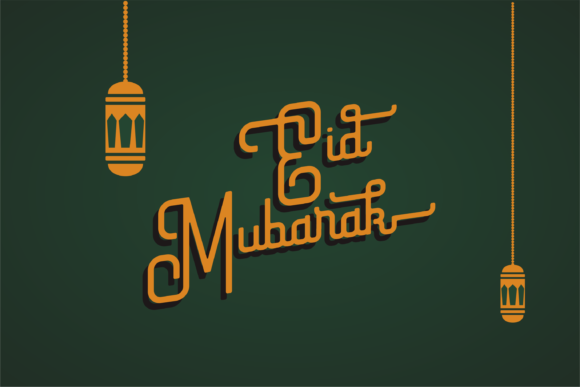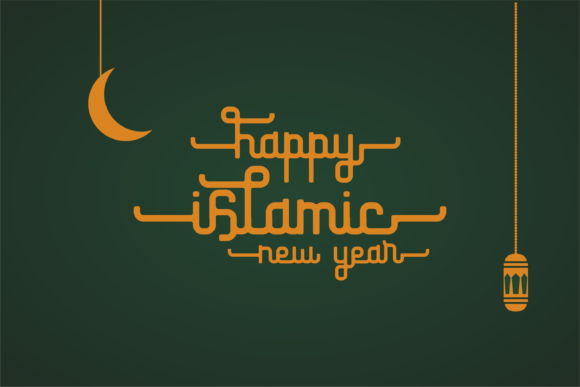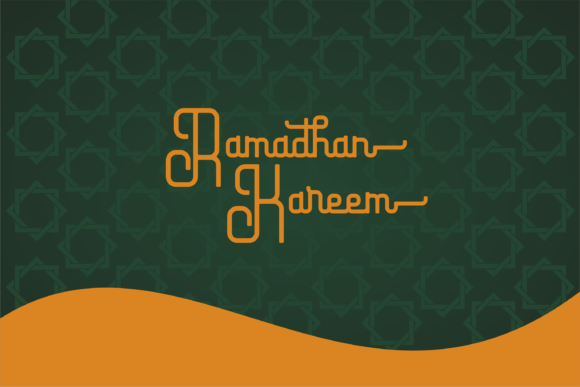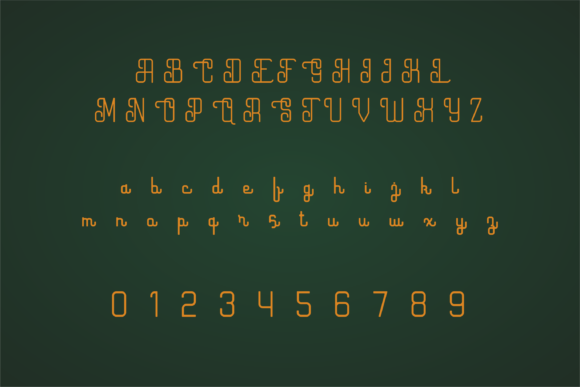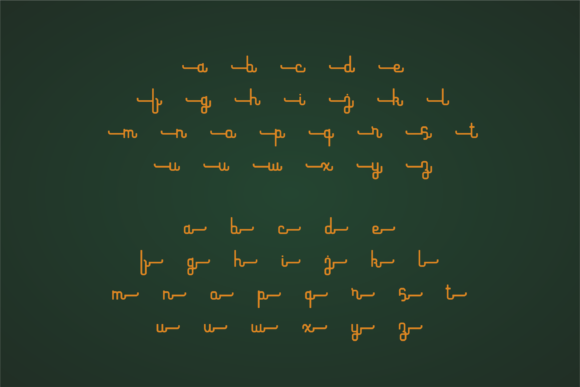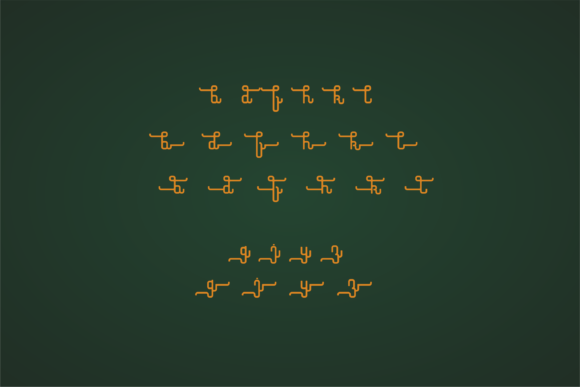
Introduction to Hijri Font
Hijri is a monoline script font with an Arabic style.
It features beautiful swashes that makes your project stand out Use it for greeting cards, invitations, posters, book covers, social media posts and much more.
Key Features of Hijri Font